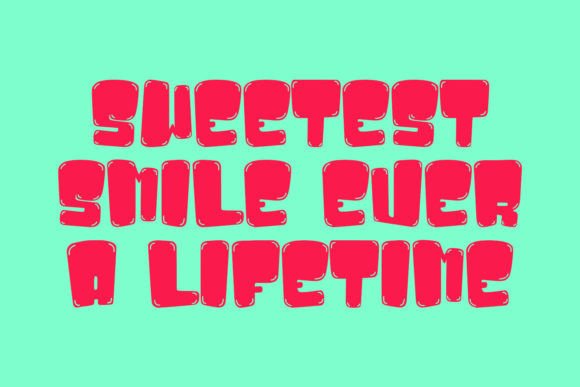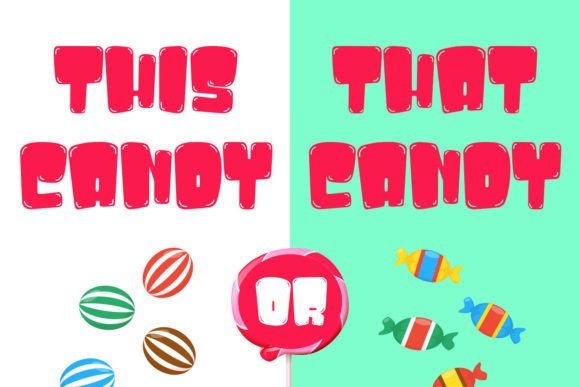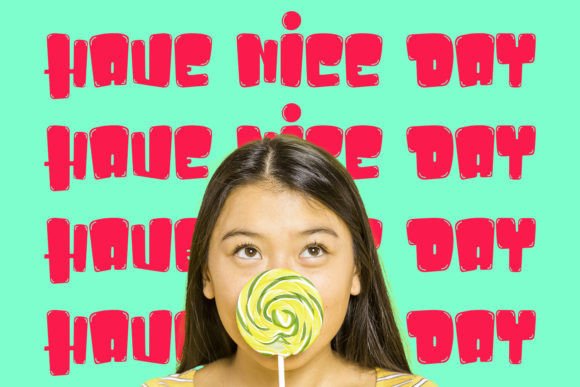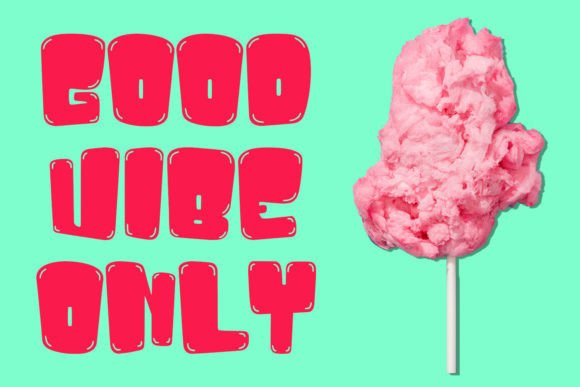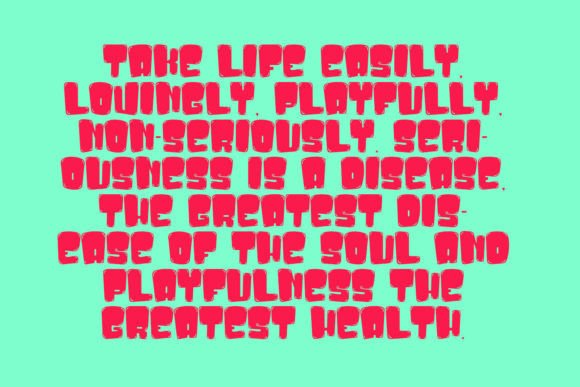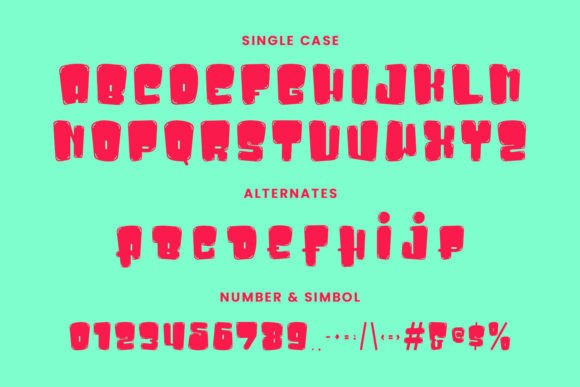
Introduction to Polipop Font
Have you ever been brainstorming ideas for a creative project, only to be struck by a sudden spark of inspiration? That’s exactly what happens when you stumble upon the perfect design resource – one that elevates your work to the next level. For designers, discovering a high-quality font that adds a touch of personality to their projects can be a game-changer.
Enter the Polipop Font, a playful display font that’s sure to bring a smile to your face. With its bold stroke, fun character, and thoughtful ligatures and alternates, this font is the perfect addition to any creative project. Whether you’re designing a logo, crafting a social media post, or writing a movie title, the Polipop Font is a valuable asset that will help you stand out from the crowd.
Not only does the Polipop Font offer a unique and eye-catching aesthetic, but it also supports over 100 languages, making it a versatile design resource for projects of all kinds. And, as a bonus, the font is available for free download, allowing you to experiment with it on a transparent background and bring your creative vision to life.
Key Features of Polipop Font
- High-quality design: Enjoy a well-crafted font with intricate details, ideal for design enthusiasts.
- Large character set: The Polipop Font includes a comprehensive character set, covering a wide range of languages and special characters.
- High-resolution graphics: Designed with high-resolution graphics in mind, making it perfect for print and digital applications.
- Unique and playful style: The Polipop Font boasts a distinctive, playful style that’s sure to add a touch of whimsy to your creative project.
Honest Review: Polipop Font
As a designer, I’m always on the lookout for new and exciting design resources to elevate my creative projects. Recently, I stumbled upon the Polipop Font, and I’m excited to share my honest review with you.
- ✨ Unique and playful design: The Polipop Font has a fun and quirky personality that’s perfect for projects that need a little extra oomph.
- ✨ High-quality graphics: The font is well-designed and looks great on any background, including transparent backgrounds.
- ⚠️ Limited character set: While the font is available in a variety of styles, the character set is somewhat limited, which may not be suitable for all design projects.
- ⚠️ Not ideal for formal projects: The Polipop Font is best suited for creative and playful projects, and may not be the best choice for formal or professional designs.
Overall, I’m impressed with the Polipop Font, and I think it’s a great addition to any design library. While it may have some limitations, it’s a high-quality resource that’s perfect for creative projects that need a little extra flair.
The Polipop Font is ideal for a variety of creative projects, including logos, branding materials, and social media graphics. Its unique style and high-quality design make it a valuable resource for any designer.
To get the most out of the Polipop Font, try combining it with other design elements to create a visually appealing design. Experiment with different font sizes, colors, and arrangements to find the perfect look for your project.